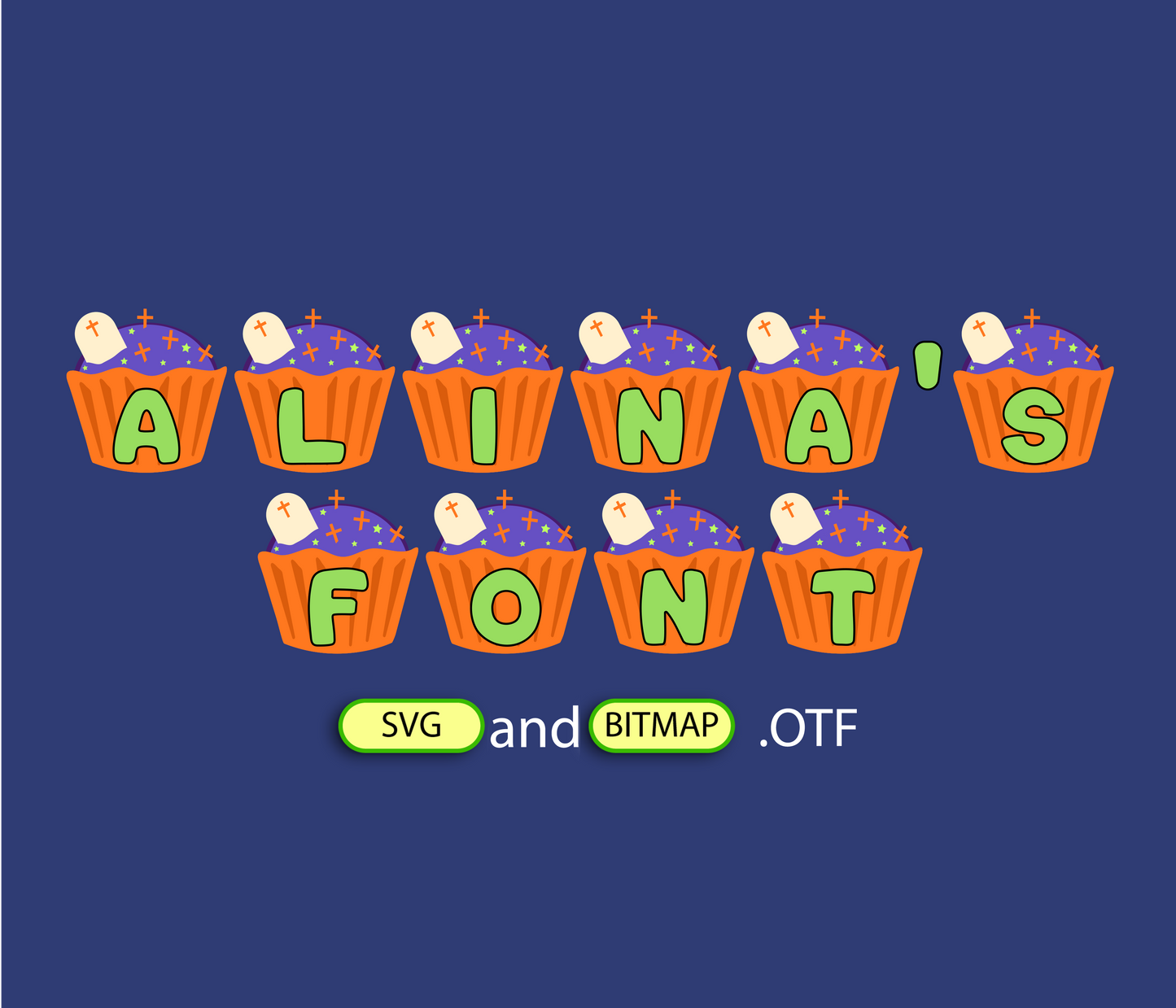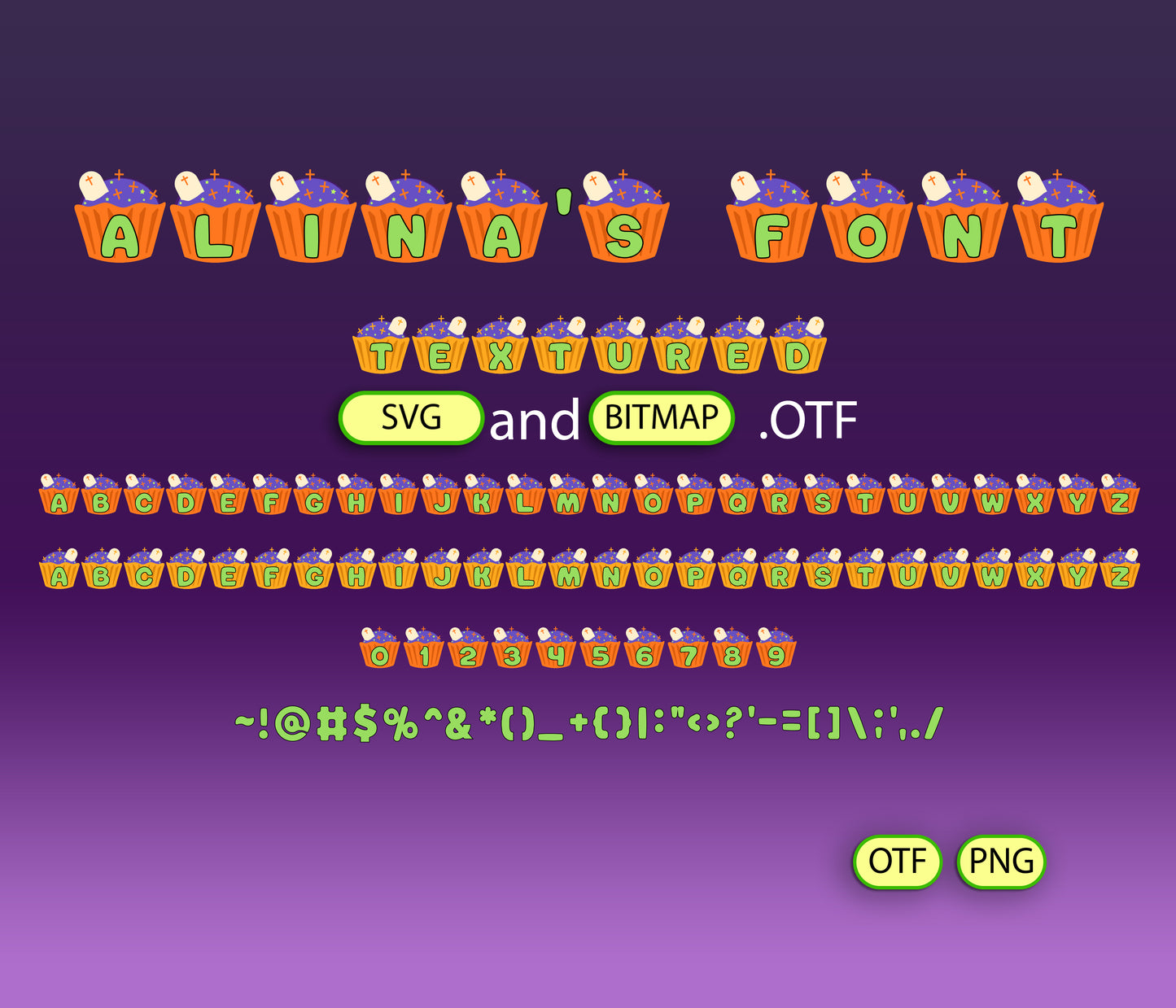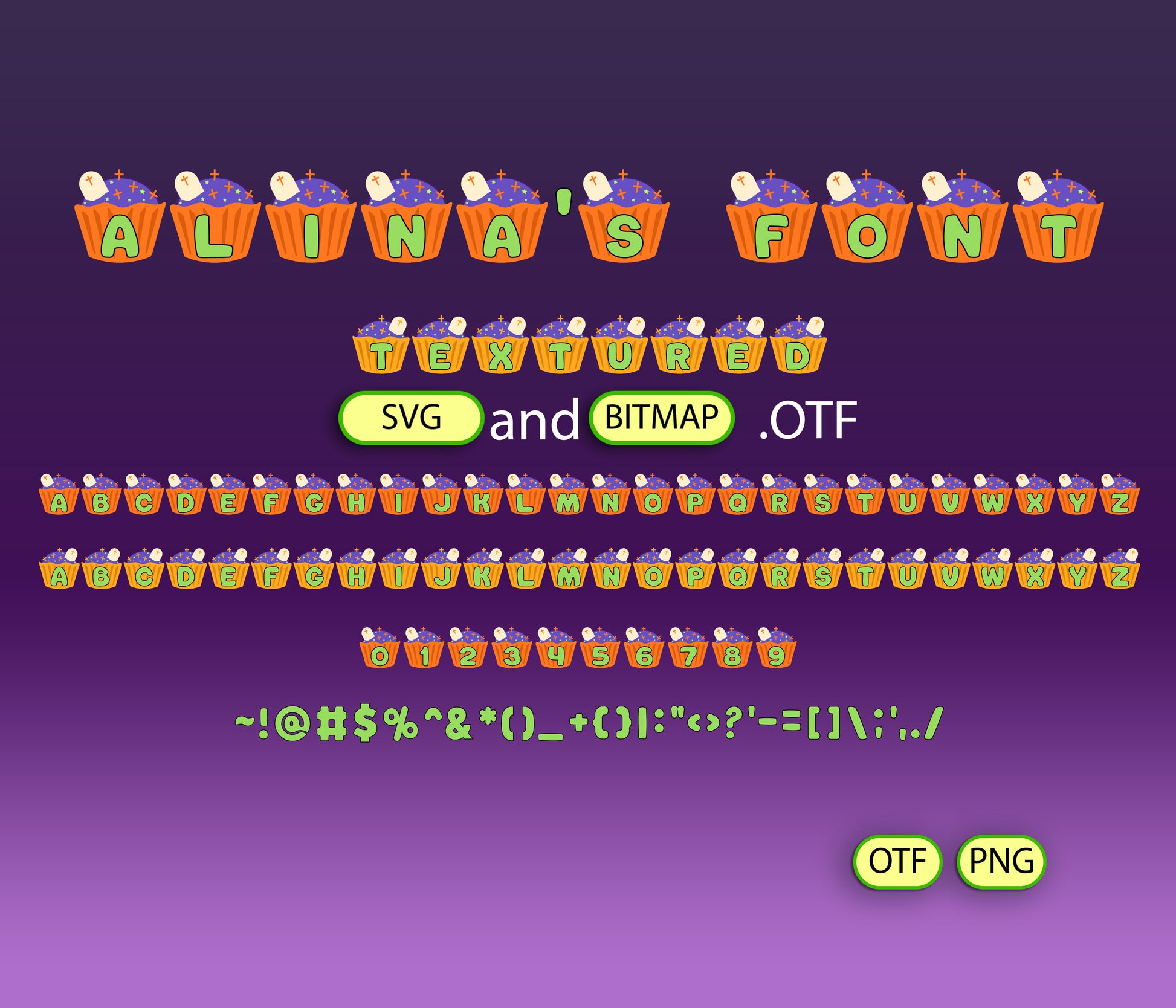
Creepy Cake Pattern Font
Creepy Cake Font Textured Wicked Treats
Step into the sinister world of enchanted pastries with our Creepy Cake font, capturing the essence of bewitched baking and frosted fear. Perfect for dessert gatherings, haunted confectionery designers, sweet content creators, and creative professionals, this font brings the chilling, sugar-dusted spirit of Halloween sweets to your projects. Create hair-raising invitations, treat-themed merchandise, or digital content with the delicious, terrifying energy of ultimate confectionery scares.
Our Creepy Cake font features layered, frosting-like shapes and bold characters reflecting the delicious yet frightening aesthetic of haunted confectionery horror scenarios. Ideal for:
- Sweet Events: Create attention-grabbing invites, posters, and banners for Halloween parties, haunted bakeshop experiences, and treat-themed gatherings
- Confectionery Design: Perfect for book covers, movie promotions, and sweet-themed party accessories that capture sugary terror
- Digital Media: Enhance websites, blogs, and social media with dramatic headers and graphics that express deliciousness and spooky atmosphere
- Entertainment Content: Add authentic character to Halloween materials, recipe designs, and promotional materials for sweet events
- Personal Projects: Bring tasty-terrifying edge to scrapbooking, DIY crafts, and home decor inspired by the aesthetics of haunted sweets